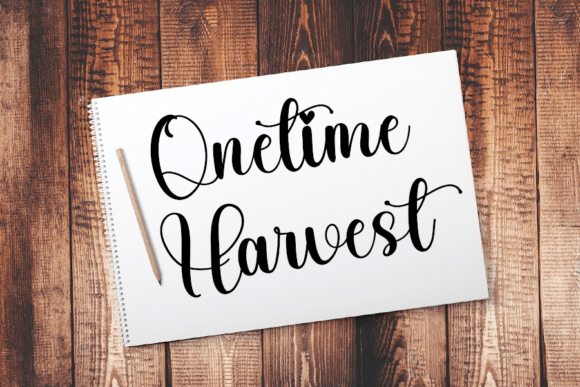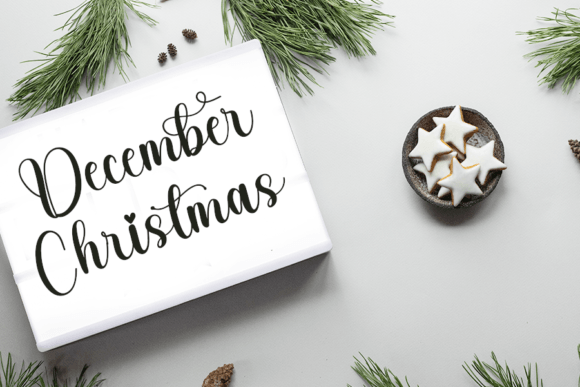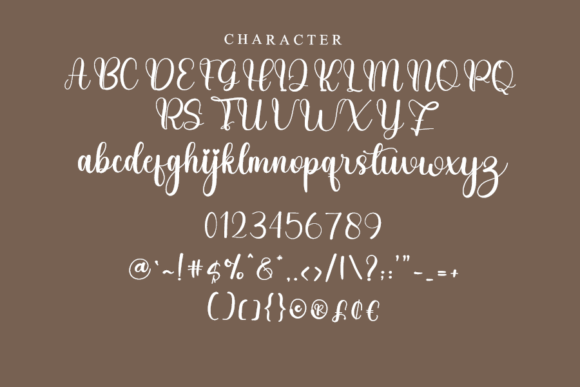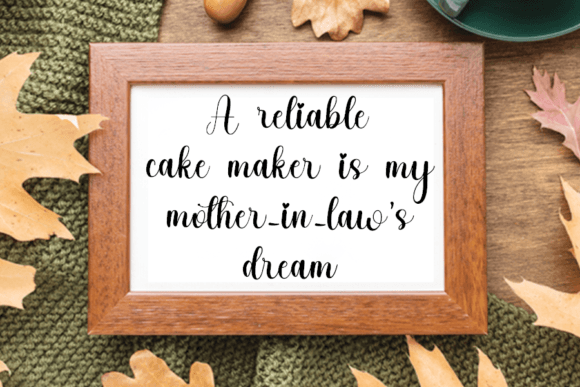
Introducing Barley Font: Elevate Your Designs with Elegance and Sophistication
Are you on the hunt for a font that exudes class, modernity, and refinement? Look no further than Barley Font, a stunning handwritten typeface that’s perfect for designers and crafters seeking to elevate their visual creations. In this article, we’ll dive into the world of Barley Font, exploring its features, benefits, and the multitude of design possibilities it offers.
What is Barley Font?
Barley Font is a beautiful, refined handwritten font that’s designed to bring a touch of elegance and sophistication to your designs. With its classy and modern aesthetic, this font is ideal for a wide range of applications, from logos and branding to invitations, stationery, wedding designs, social media posts, and more.
Key Features of Barley Font
- PUA Encoding: Barley Font is PUA (Private Use Area) encoded, which means you can easily access all the amazing glyphs and ligatures without any hassle. This feature makes it simple to get creative and experiment with different design elements.
- Handwritten Elegance: The font boasts a beautiful, handwritten appearance that’s both refined and modern. Its flowing lines and curves add a touch of sophistication to any design.
- Versatility: Barley Font is incredibly versatile, making it suitable for a wide range of design projects. Whether you’re working on a logo, invitation, or social media post, this font is sure to impress.
Design Possibilities with Barley Font
The possibilities are endless when it comes to designing with Barley Font. Here are just a few ideas to get you started:
- Invitations and Stationery: Add a touch of elegance to your invitations, greeting cards, and stationery with Barley Font’s refined handwritten aesthetic.
- Wedding Designs: Make your wedding designs truly unforgettable with Barley Font’s beautiful, flowing lines and curves.
- Social Media Posts: Elevate your social media presence with eye-catching graphics and posts that showcase your brand’s personality and style.
Benefits of Using Barley Font
So, why choose Barley Font for your design projects? Here are just a few benefits you can expect:
- Unique and Creative: Barley Font offers a unique and creative way to express yourself and showcase your brand’s personality.
- Easily Readable: The font is designed to be easily readable, making it perfect for body text and captions.
- Highly Versatile: Barley Font can be used for a wide range of design projects, from print to digital.
Tips and Tricks for Using Barley Font
To get the most out of Barley Font, here are a few tips and tricks to keep in mind:
- Experiment with Ligatures: Take advantage of Barley Font’s beautiful ligatures to add a touch of elegance to your designs.
- Play with Font Sizes: Experiment with different font sizes to create visual hierarchy and emphasize key design elements.
- Pair with Other Fonts: Combine Barley Font with other fonts to create a unique and visually appealing design.
In conclusion, Barley Font is a stunning handwritten typeface that offers a world of creative possibilities for designers and crafters. With its elegant and refined aesthetic, PUA encoding, and versatility, this font is perfect for a wide range of design projects. Whether you’re working on a logo, invitation, or social media post, Barley Font is sure to elevate your designs and leave a lasting impression.